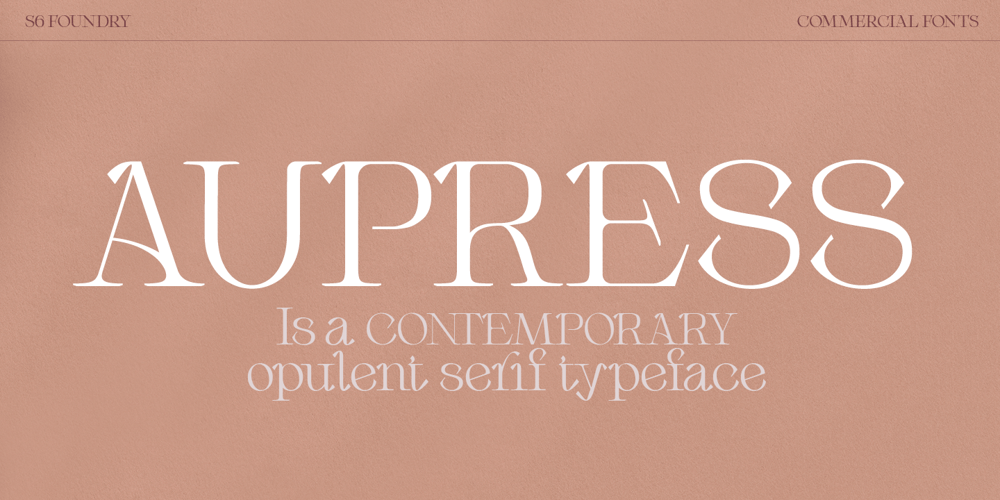
Aupress Font Family was designed by Paul Henry Robb and published by S6 Foundry. Aupress contains 3 styles and family package options. Aupress is a contemporary luxurious serif typeface featuring large open counters, curved, round forms, creating a modern & elegant glyph set. The family has been designed to give style and form to every project.